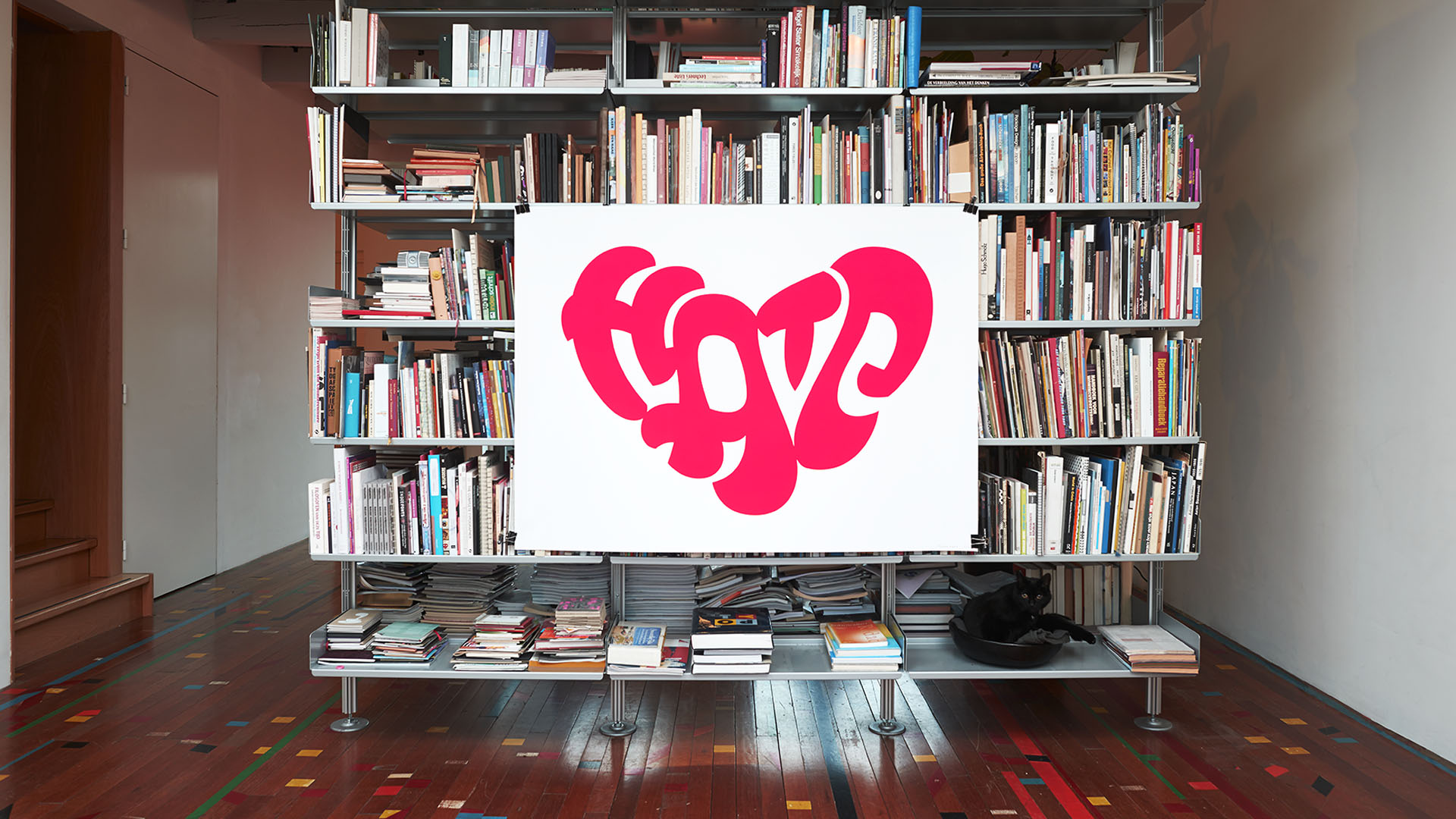
Is there something you only love, without hating it a little? Can you hate something completely, without any love? Can love exist without hate?
Exactly 100 years after Edgar Rubin created his famous Rubin’s vase – the godfather of all figure-ground illusions – this poster is published as a typographic tribute to the Danish professor of psychology. Silkscreen printed in a super bright red color, this übersized poster requires some empty wall space. Seriously, this poster is pretty big. Printed in a limited edition of 20 copies only.
A smaller version of this typographic illusion is published in Dutch Alphabets, a portfolio showcasing lettering and writing art.
title Love is stronger than hate
printing fluor silkscreen
design Underware